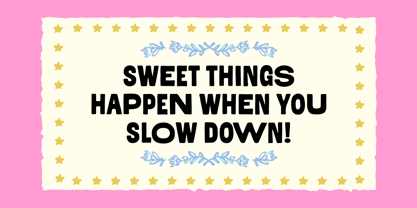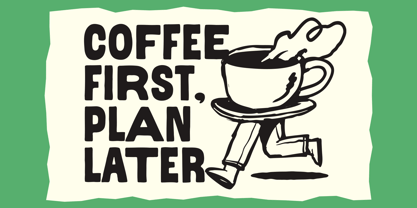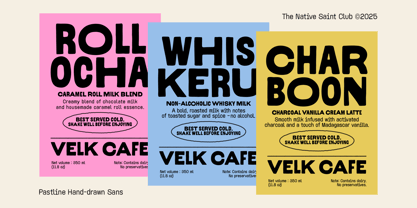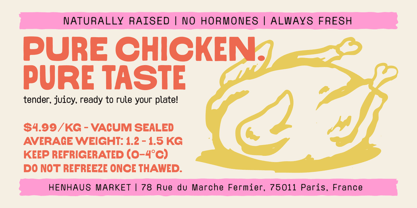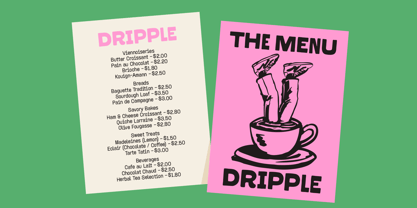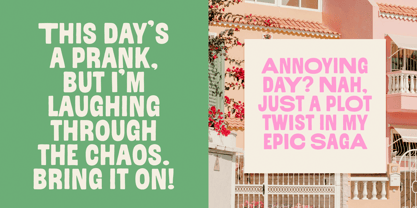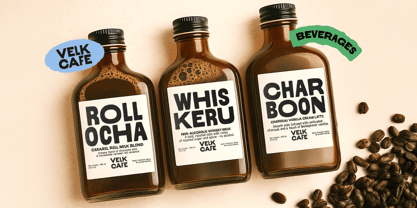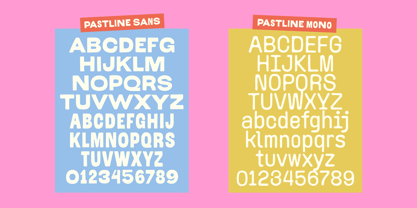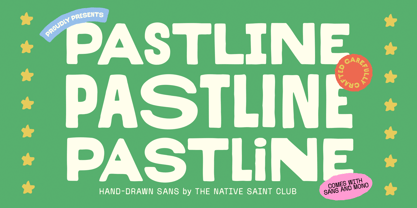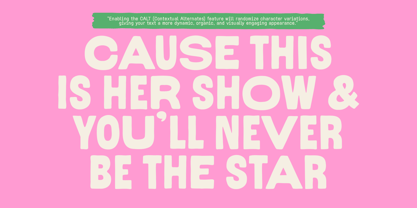
TNSC Pastline
by The Native Saint Club
The TNSC Pastline Font Family was designed by Bagas Ferdiansah, Septianto Nugroho and published by The Native Saint Club. TNSC Pastline contains 2 styles and family package options. More about this family
TNSC Pastline is a hand-drawn font duo sans serif and mono, made to work together. Perfect for food, coffee, café, and restaurant branding or packaging and support for 50+ languages.